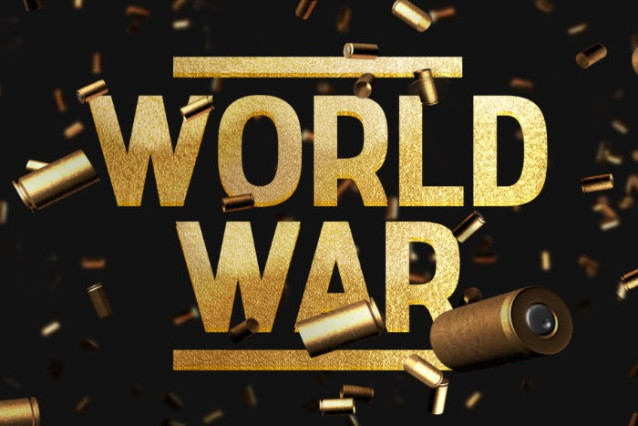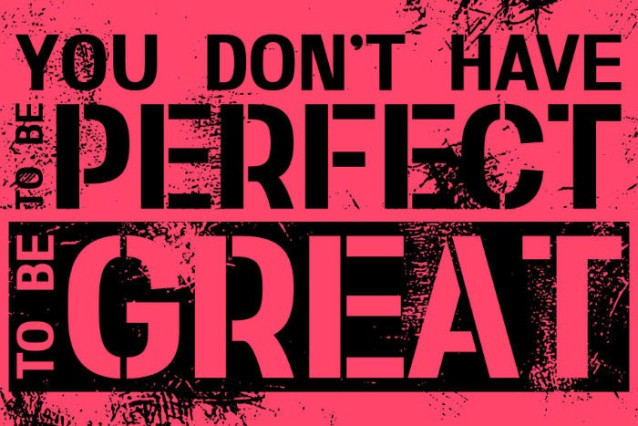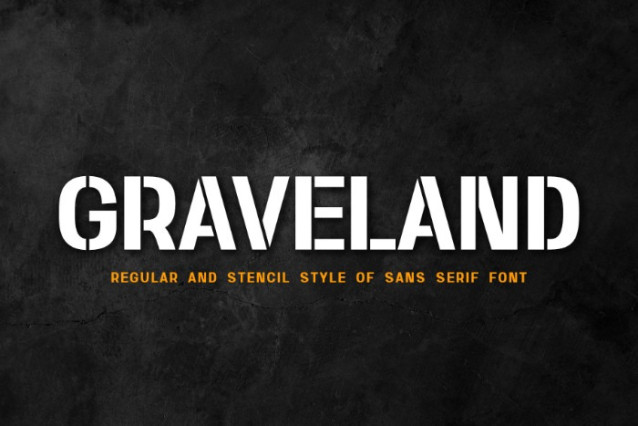
Graveland Font
Graveland Font, a simple sans serif font that masterfully blends elegance with sportiness. Designed to cater to a wide range of creative needs, Graveland is perfect for branding, logotypes, and various design projects. Its clean lines and versatile nature make it a standout choice for both professional and casual applications.
Graveland comes in two distinct styles: regular and stencil. The regular style offers a sleek and polished look, ideal for projects that require a touch of sophistication. On the other hand, the stencil style adds a dynamic and sporty edge, making it perfect for designs that need a bit of flair and energy.
This font’s dual nature allows it to seamlessly transition between different contexts, from high-end branding to athletic apparel. The elegant simplicity of Graveland ensures that your message is clear and impactful, while its sporty undertones add a modern twist.
Choose Graveland for your next project and experience the perfect harmony of style and versatility. Let this font elevate your designs with its blend of sophistication and athletic charm.